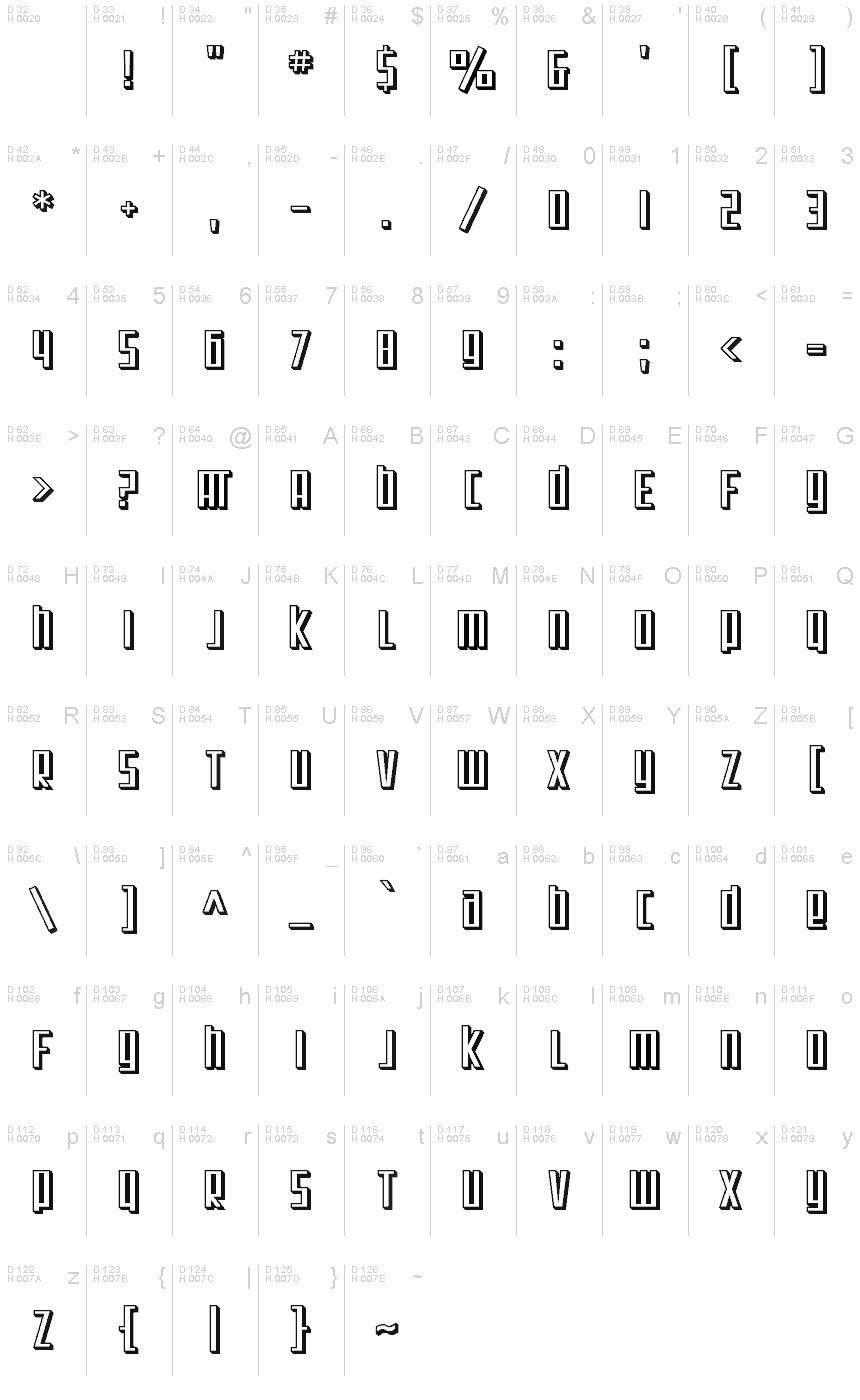
SF Square Root Shaded
SF Square Root Shaded, a creation from the SF Square Root family by ShyFonts Type Foundry, stands out with its distinctive 3D techno style that merges modernity with geometric precision. The semi-light weight and extra-condensed width forge a streamlined appearance that commands attention while maintaining an air of sleek sophistication.
The font's shaded facets add depth and dimension, crafting an aesthetic that is as engaging as it is functional. This display typeface is poised to elevate any creative project seeking to make a bold statement—be it in digital media, print advertising, branding, or event visuals.
SF Square Root Shaded's architectural form makes it particularly suited for designs that aim to convey innovation and cutting-edge technology. Its unique character ensures legibility with a futuristic twist, rendering it an excellent choice for those looking to infuse their work with a sense of depth and contemporary flair.